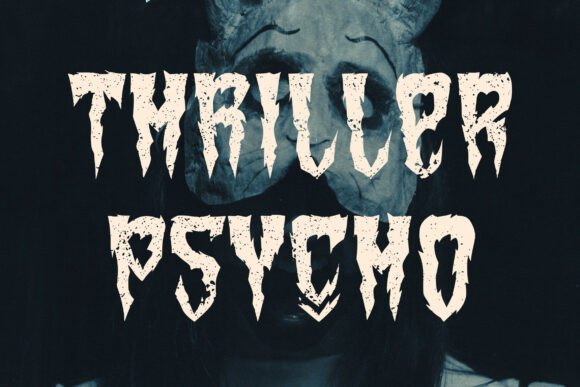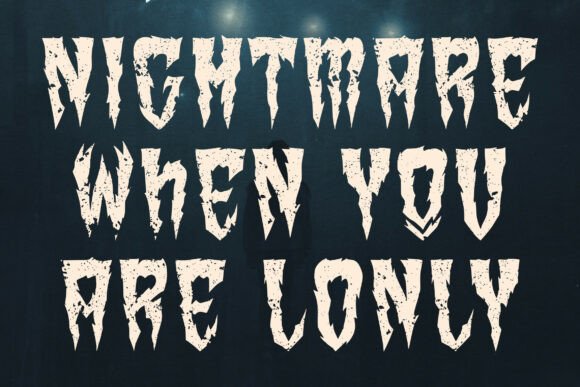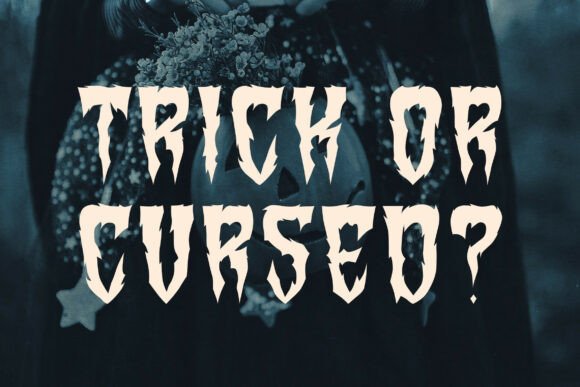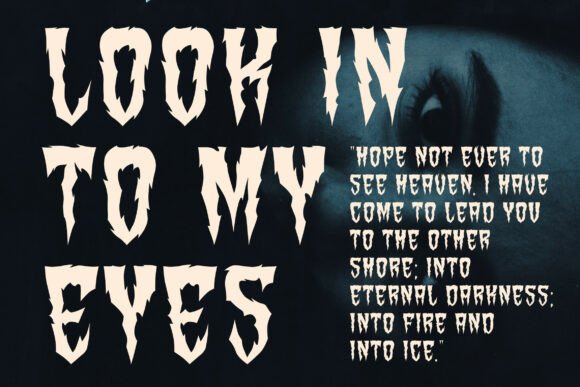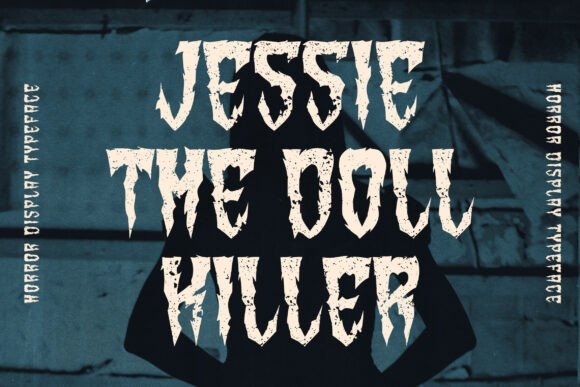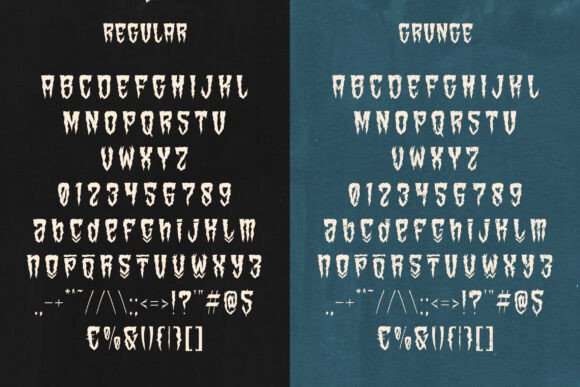
Unveiling the Eerie Elegance of Ghaib Font: A Journey into the Unseen
In the realm of typography, few fonts have managed to evoke the same level of intrigue and fascination as Ghaib. Emanating from the mysterious depths of the unseen world and whispered legends, GHAIB takes form as a horror typeface that is as enchanting as it is chilling. This font is not just a collection of characters; it’s an experience, a visual journey that pulls the beholder into a cold, subtly disturbing, and fascinatingly ominous atmosphere.
The Essence of Ghaib
Carved from the very essence of the spectral realm, GHAIB’s letterforms are sharp, robust, and jagged, resonating with the gripping allure of the secretive darkness. Each character is meticulously crafted to convey a sense of mystique, haunting aura, and spine-tingling delight. The font’s design is a masterful blend of eerie elegance and raw power, making it an ideal choice for designers and crafters looking to add a touch of the unknown to their projects.
Exploring the Variations of Ghaib
GHAIB offers profound variations that cater to different design needs and preferences. The font comes in two primary styles:
- Regular: The regular style is solid and poignant, ideal for casting intense and remarkable impressions. This version of GHAIB is perfect for projects that require a strong, haunting presence without the need for texture or distressing.
- Grunge: The grunge style adds a textured, crackled, and vintage feel to the font, imitating age-old inscriptions that have withstood the ravages of time and dust. This variation adds an extra layer of depth and character to the font, making it look like it’s been plucked straight from ancient, mysterious tomes or forgotten gravestones.
Ideal Applications for Ghaib
The chilling appeal of GHAIB makes it ideally suited for a galaxy of design projects, including:
- Gothic, Horror, and Halloween Designs: GHAIB is tailor-made for projects that thrive in the dark, mysterious, and eerie realms. Its presence can elevate Halloween-themed designs, horror movie posters, and gothic-inspired artwork to new heights.
- Mysterious Narratives: For writers and designers crafting stories or visuals that delve into the mysterious, unknown, or supernatural, GHAIB offers a typographic solution that complements the narrative’s atmosphere.
- Dark Fantasy Realms: In the world of dark fantasy, where mystique and eeriness reign, GHAIB serves as an excellent tool for creating immersive and captivating visuals.
Utilizing Ghaib in Design Projects
To harness the full potential of GHAIB, designers and crafters can experiment with various applications:
- Pair with Complementary Fonts: Combine GHAIB with fonts that offer a stark contrast, such as clean, sans-serif fonts, to create visual interest and hierarchy in your designs.
- Play with Color Schemes: Enhance the eerie effect of GHAIB by pairing it with dark, muted color palettes or striking, bold colors that evoke a sense of mystery and intrigue.
- Experiment with Textures and Effects: Further amplify the grunge version of GHAIB by adding subtle textures or effects that mimic aging, decay, or mystical phenomena.
| Font Name | Ghaib Font |
| Author | Hatf Type |
Ghaib Font stands as a unique and powerful tool in the world of typography, offering designers and crafters a gateway to create works that resonate with mystery, horror, and dark fantasy. Its chilling appeal and versatile variations make it an excellent choice for those looking to infuse their projects with an air of the unseen and unexplained. As a font that emanates from the very essence of the spectral realm, GHAIB invites you to explore the depths of the unknown, one character at a time.